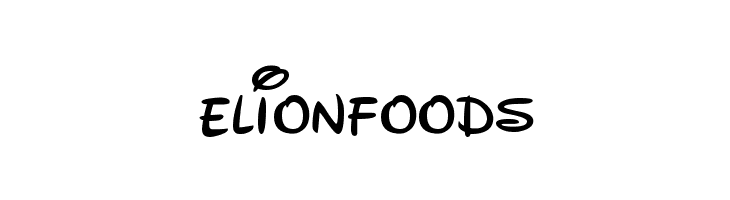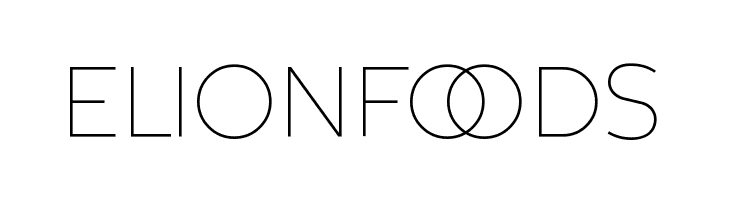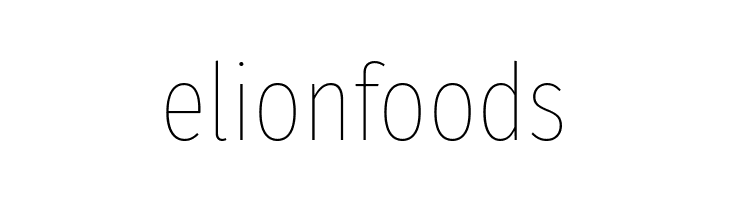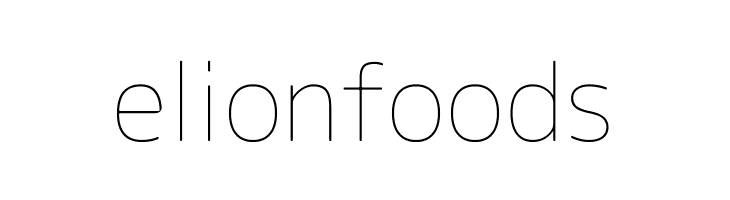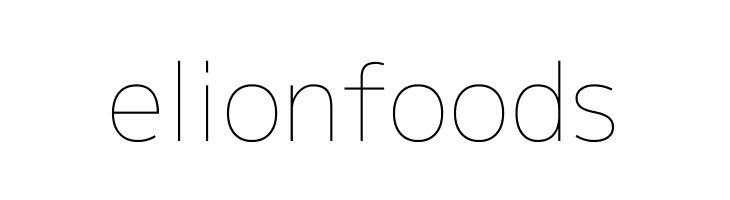
A modern, geometric font with a sleek and minimalistic design.
A bold, playful font with irregular, geometric shapes and a dynamic style.
A modern, extra-condensed, thin sans-serif font with a clean and minimalist design.
A modern, extra condensed sans-serif font with a sleek, minimal design.
A modern, thin, and rounded font with a clean and minimalist design.
A modern, thin sans-serif font with a clean and minimalist design.
A modern, thin, and minimalist font with uniform strokes and high readability.
A sleek, modern, and condensed font with an extra light weight and minimalist design.